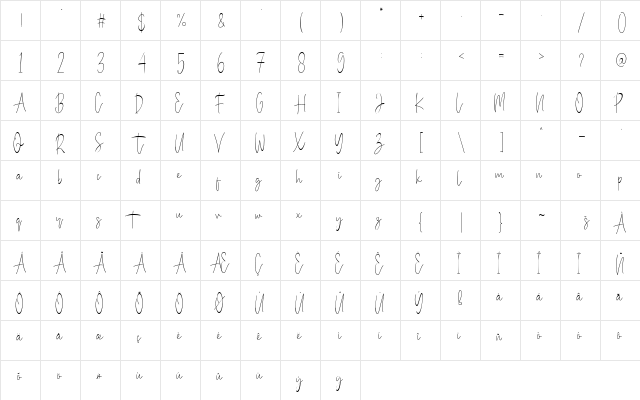
BasterMonky Regular
Design Context for BasterMonky Typeface
BasterMonky is a composed and adaptable typeface that performs quietly and consistently across a wide range of design contexts.